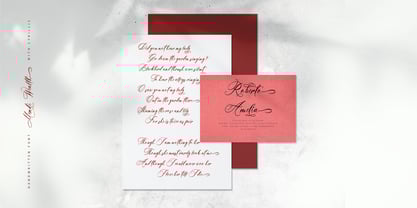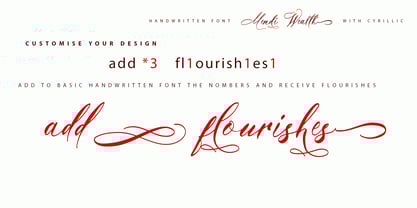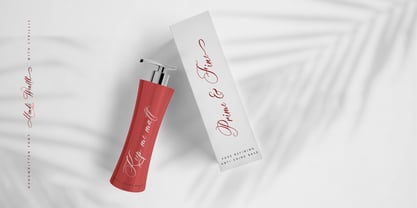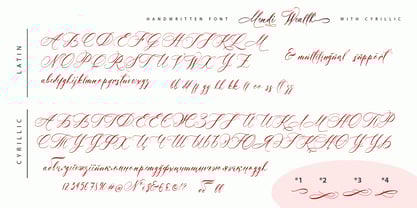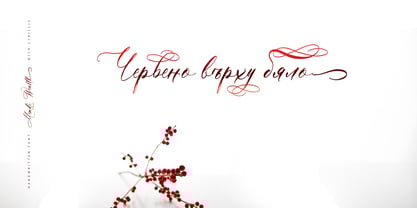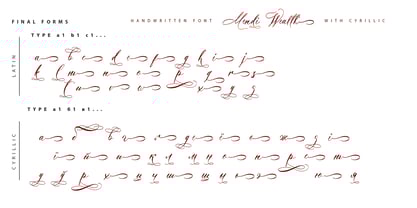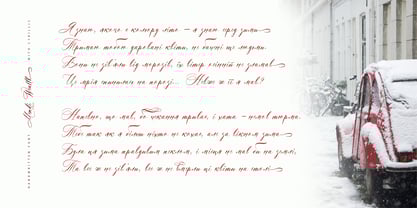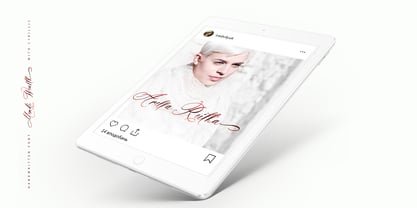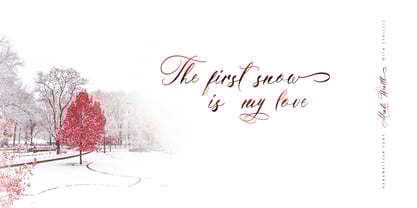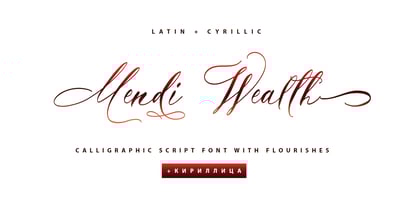
Mendi Wealth Cyrillic
by Ira Dvilyuk
The Mendi Wealth Cyrillic Font Family was designed by Iryna Dviliuk and published by Ira Dvilyuk. Mendi Wealth Cyrillic contains 1 styles. More about this family
Mendi Wealth Cyrillic Script font was handwritten by pen and will look great on branding design, posters, apparel, logotype, website header, fashion design, wedding card design, and more.
Mendi Wealth Cyrillic script font contains a full set of uppercase and lowercase letters and 13 ligatures - which can be used to create a handwritten calligraphy look.
Multilingual Support for 82 languages: Abaza, Avar, Adyghe, Afrikaans, Agul, Albanian, Asturian, Basque, Belarusian, Bulgarian, Breton, Buryat, Valencian, English, Estonian, Faroese, Finnish, French, Frisian, Gaelic (Scottish), Galician, German, Hungarian, Icelandic, Indonesian, Ingush, Irish, Italian, Kabardino-Circassian, Karakalpak (Lat.), Karachay-Balkar, Karelian, Kazakh, Komi-Permyak, Komi-Zyryan, Kurdish (Lat.), Kumyk, Lak, Latin, Latvian, Lezgin, Lithuanian, Maori, Mongolian (Kyrgyz.), Mordovian-Erzya, Mordovian-Moksha, Nogai, Norwegian, Occitan, Polish, Portuguese, Rhaetian-Romance, Romanian, Russian, Rutul, Sami Lule, Slovak, Slovenian, Spanish, Swedish, Tabasaran, Tat, Tswan, Tuvinian, Turkmen (Lat.), Ukrainian, Uzbek (Lat.), Valencian, Welsh
Designers: Iryna Dviliuk
Foundry: Ira Dvilyuk
Hello! My name is Ira Dvilyuk and handwritten font making is my passion. I have been drawing all my life, but when I started freelancing, my cherished dream was to create handwritten fonts. I value lightness, elegance, and grace in design and typography, so fonts that I create are in a delicate feminine style suitable for wedding invitations or gentle designs. My favorite is to reflect in my typeface the natural handwriting of a writing tool. I think it is very important to create fonts with a high level of quality, complementing my font with alternatives, ligatures, and language support not only for the extended Latin but also for the Cyrillic too. I sincerely hope that my fonts will help you bring your ideas to life.